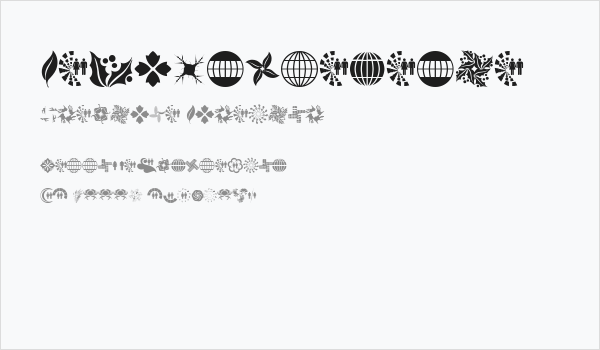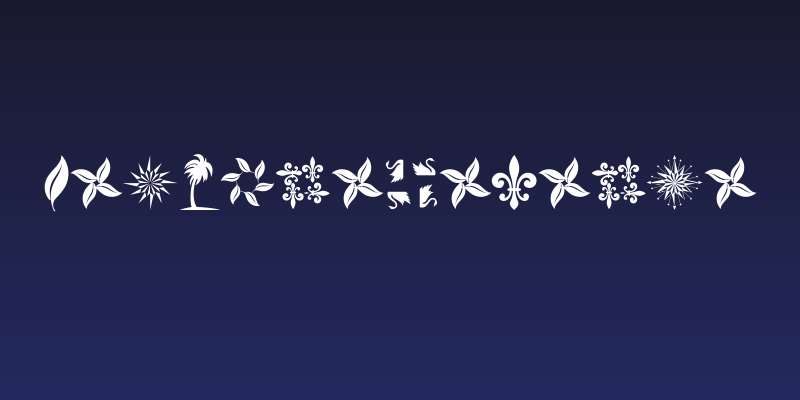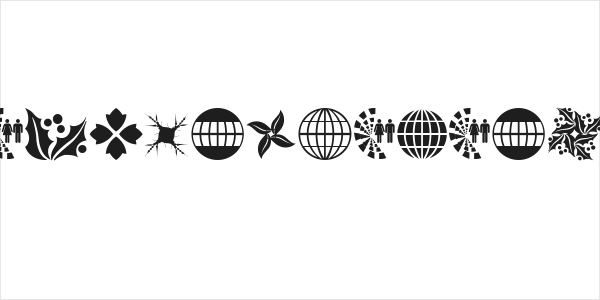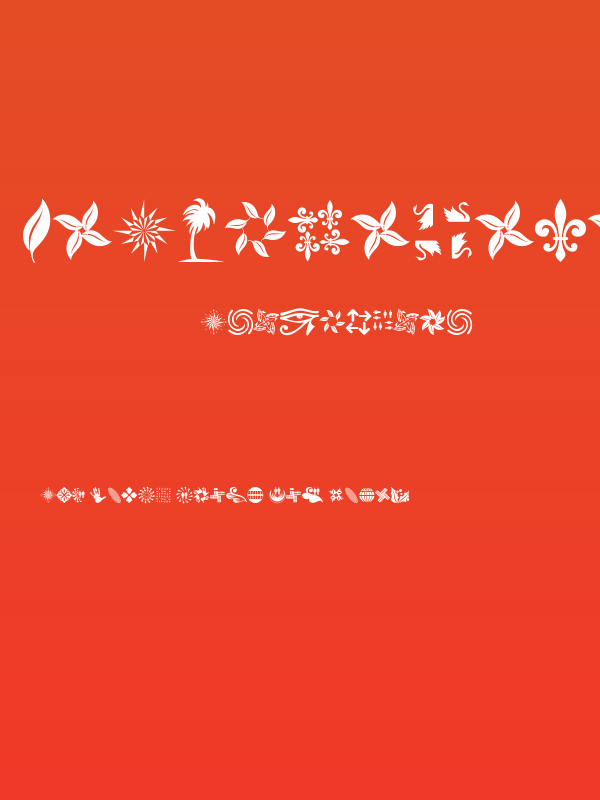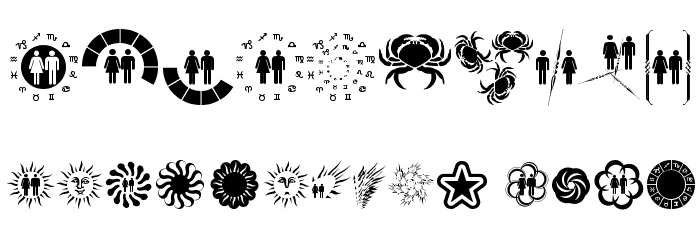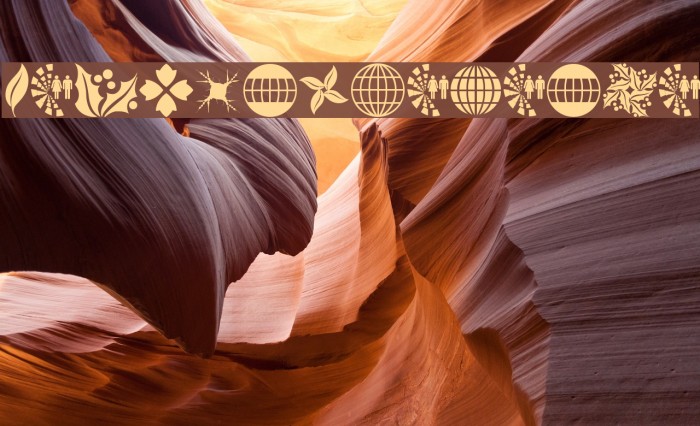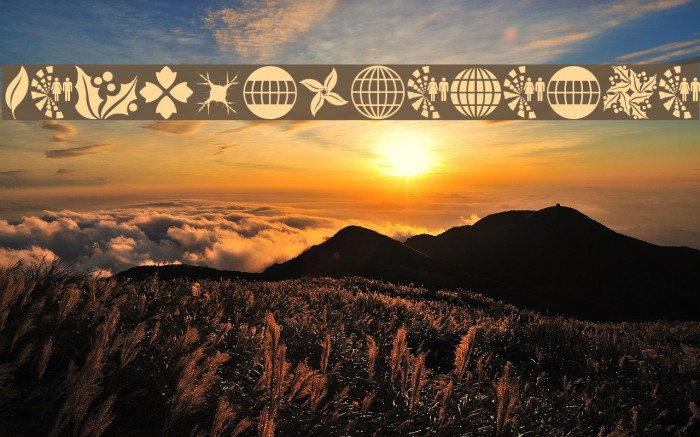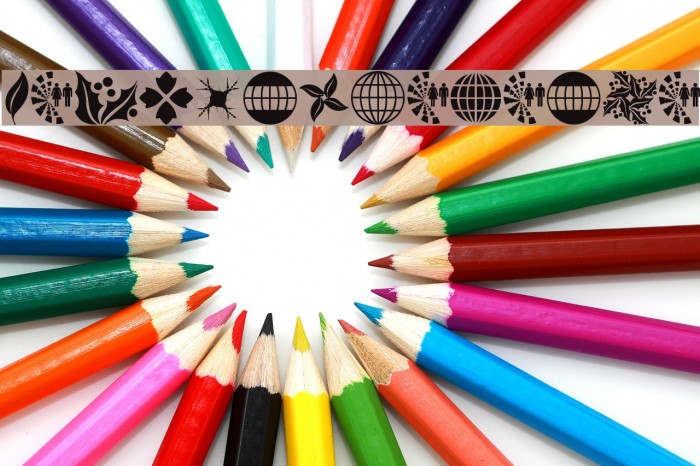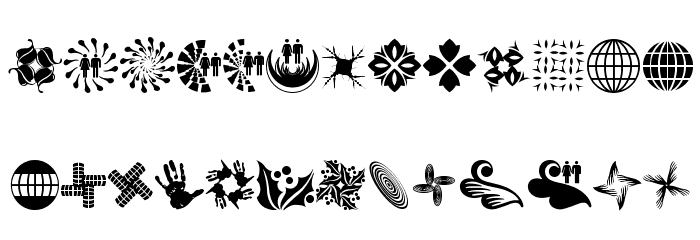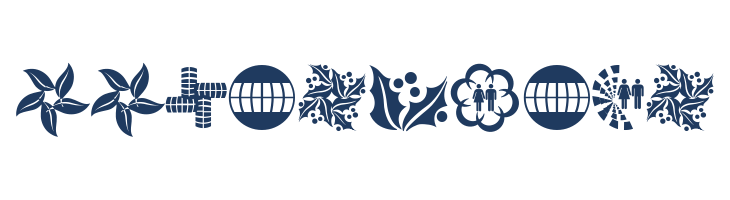
DesignElemente Font
DesignElemente Description
A collection of decorative and symbolic design elements, including floral motifs, arrows, swirls, human figures, globes, astrological symbols, hands, animals, and abstract shapes, all rendered in bold black silhouettes with varying levels of intricacy.
| Overall Style | Decorative, Symbolic, Ornamental |
| Use Case | Borders, Dividers, Logos, Decorative accents, Scrapbooking |
| Proposed Projects | Ideal for graphic design, logo creation, borders, dividers, scrapbooking, invitations, and digital art requiring decorative or symbolic accents. |